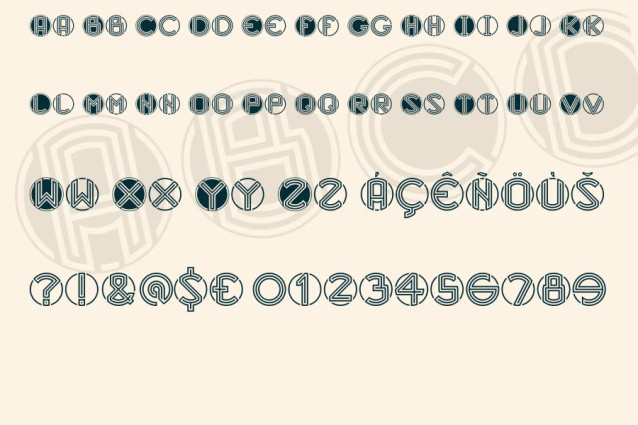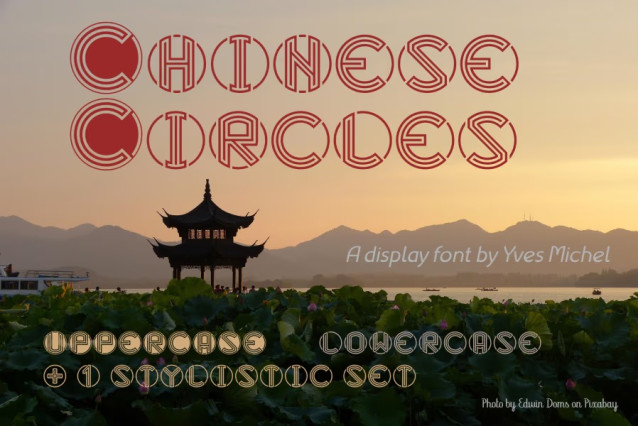
Chinese Circles Font
Chinese Circles Font – Based on Chinese circular symbols, a large display font that includes uppercase, lowercase, numbers, symbols and necessary punctuation. A symbol set 01 is provided to change numbers, symbols and punctuation to black version when needed.